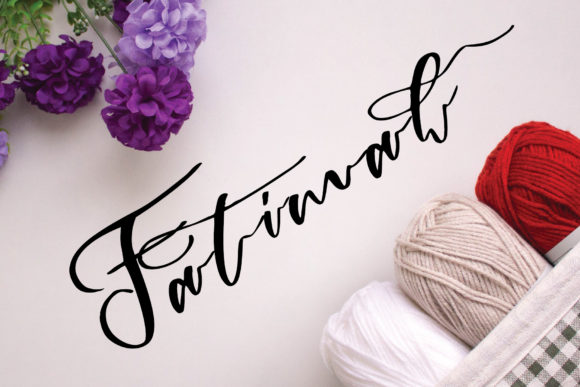
Fatimah Font: Elevate Your Designs with Elegance and Timeless Style
In the world of typography, few fonts manage to capture the essence of elegance and timelessness as effectively as the Fatimah Font. This beautifully crafted, flowing handwritten font is designed to add a touch of sophistication and refinement to any project. Whether you’re a designer looking to elevate your brand’s visual identity or a crafter seeking to add a personal touch to your creations, Fatimah Font is an exceptional choice.
The Distinctive Charm of Fatimah Font
Fatimah Font stands out in the realm of digital typography due to its incredibly distinct and timeless style. Its elegant touch is immediately noticeable, making it perfect for projects that demand a high level of sophistication. From wedding invitations and branding materials to packaging and digital content, Fatimah Font brings a level of refinement that is hard to match.
Key Features of Fatimah Font
• Elegant and Flowing Script: Fatimah Font boasts a beautiful, flowing script that adds a touch of luxury to any design.
• Handwritten with Precision: Despite its digital nature, Fatimah Font retains the charm of a handwritten script, offering a personal and unique feel.
• Timeless Appeal: Its classic style ensures that your designs remain relevant and stylish for years to come.
• Versatile: Suitable for a wide range of projects, from digital content to print materials.
Why Choose Fatimah Font?
Choosing Fatimah Font for your projects comes with numerous benefits. Its unique style not only sets your work apart but also communicates a sense of elegance and professionalism. Here are some reasons why Fatimah Font should be your go-to choice:
• Enhances Brand Identity: For businesses, using a distinctive font like Fatimah can significantly enhance brand recognition and create a lasting impression.
• Perfect for Creative Projects: Whether you’re working on a personal blog, crafting digital content, or designing print materials, Fatimah Font adds that extra special touch.
• Easy to Read: Despite its elegant and flowing nature, Fatimah Font maintains a high level of readability, making it suitable for both headings and body text.
Using Fatimah Font in Your Projects
Incorporating Fatimah Font into your designs is straightforward. Here are some tips to make the most out of this beautiful font:
• Pair with Complementary Fonts: For optimal results, pair Fatimah Font with clean, sans-serif fonts to create a balanced and visually appealing design.
• Experiment with Sizes and Colors: Don’t be afraid to experiment with different sizes and colors to find the perfect combination that suits your project’s theme.
• Use for Headings and Titles: Fatimah Font truly shines when used for headings and titles, where its elegant and flowing script can be fully appreciated.
Fatimah Font is more than just a typeface; it’s a design element that can elevate your projects to new heights of elegance and sophistication. Its timeless style, combined with its versatility and readability, makes it an invaluable asset for designers and crafters alike. Whether you’re looking to create stunning brand identities, beautiful wedding invitations, or captivating digital content, Fatimah Font is sure to exceed your expectations.
So, fall in love with the distinct and timeless style of Fatimah Font and use it to create spectacular designs that leave a lasting impression.